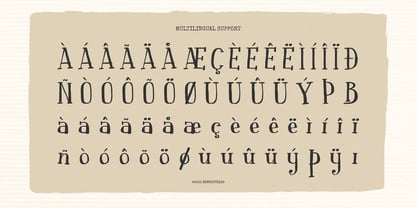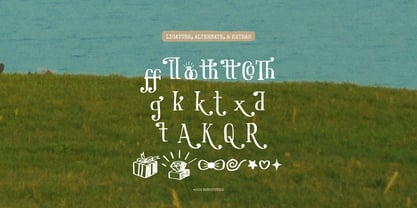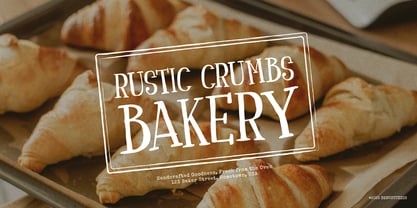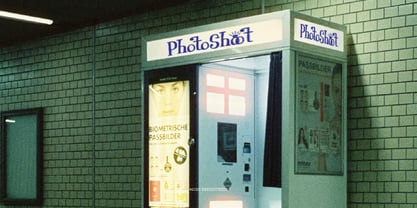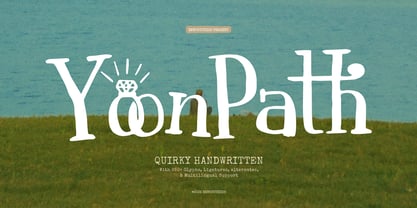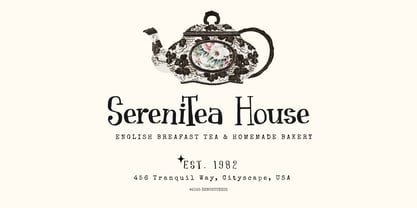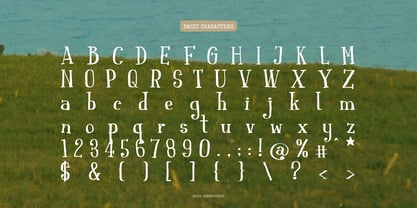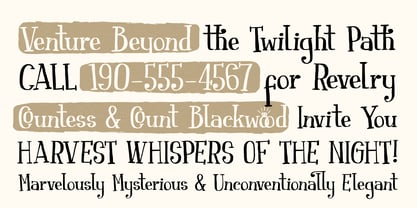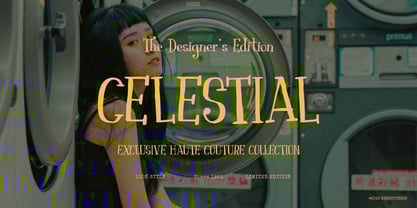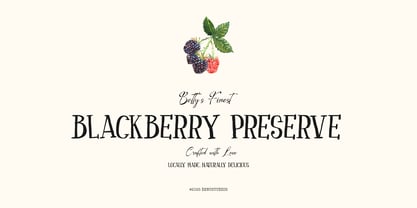
Yoon Path
by Denustudio
The Yoon Path Font Family was designed by Dede Nugraha and published by Denustudio. Yoon Path contains 2 styles and family package options. More about this family
Yoon Path | Quirky Handwritten, from Denustudios, suitable for any projects such as: logos, branding projects, homeware designs, product packaging, mugs, quotes, posters, shopping bags, t-shirts, book covers, name card, invitation cards, greeting cards, label, photography, watermark, special events, and all your other lovely projects that need Quirky Handwritten a taste.
• Regular and Italic
• Alternate and Ligature
Designers: Dede Nugraha
Current Foundry: Denustudio